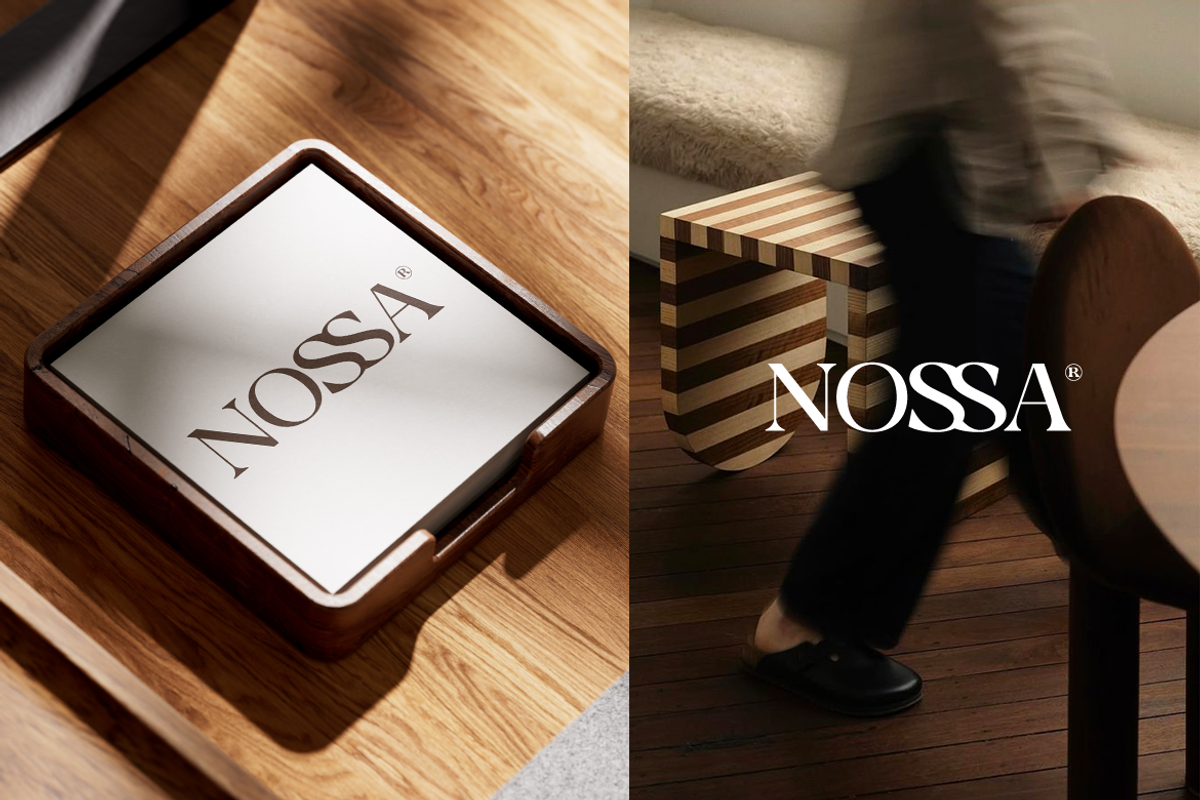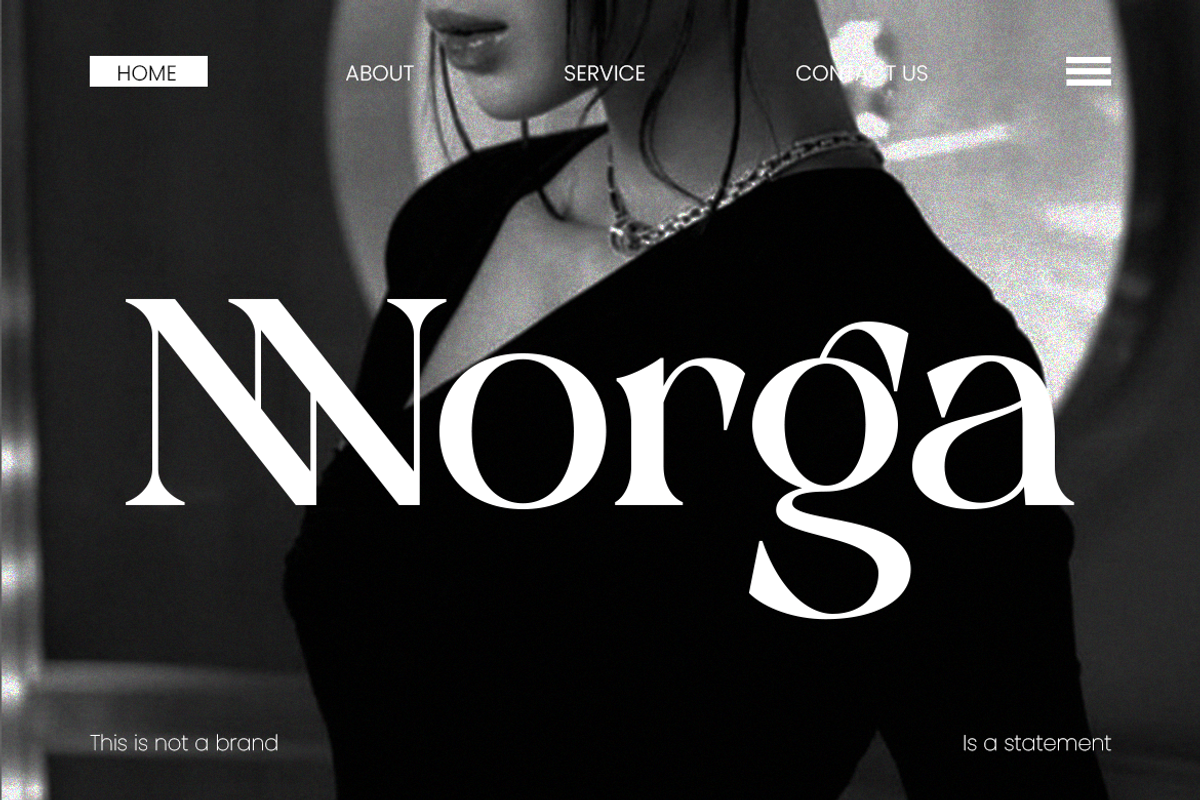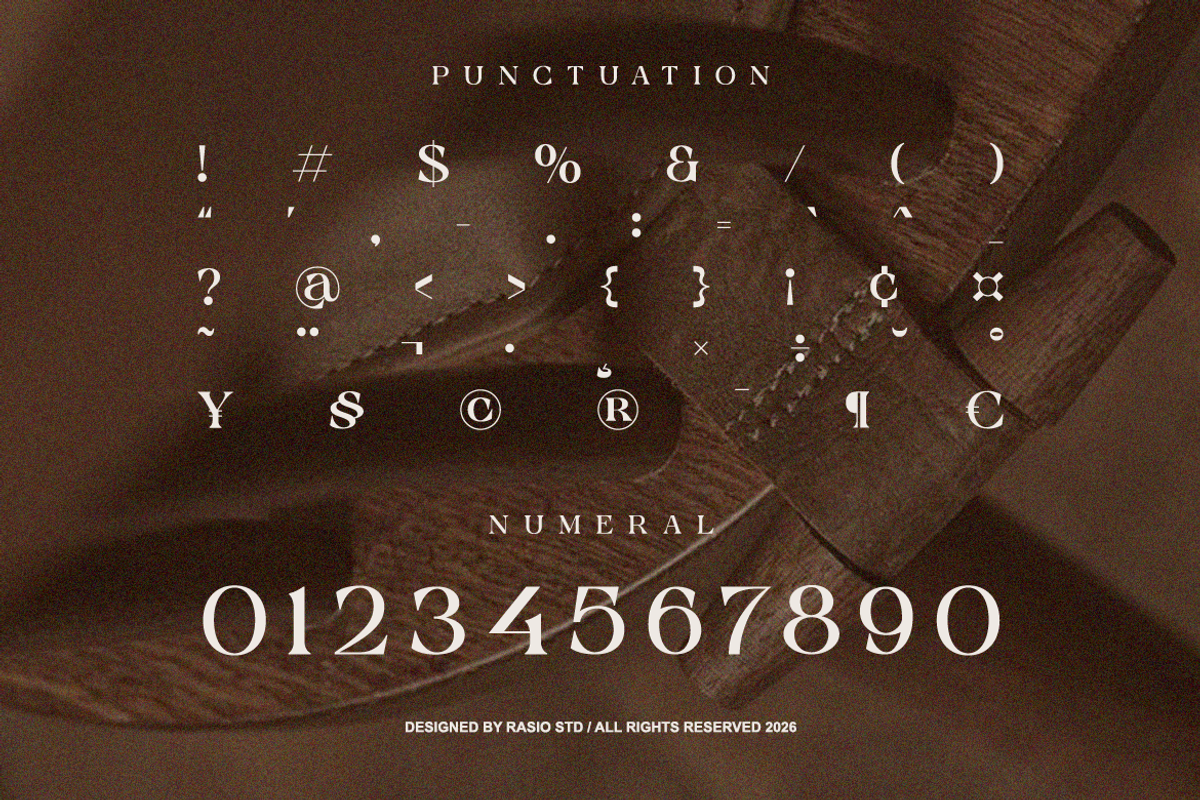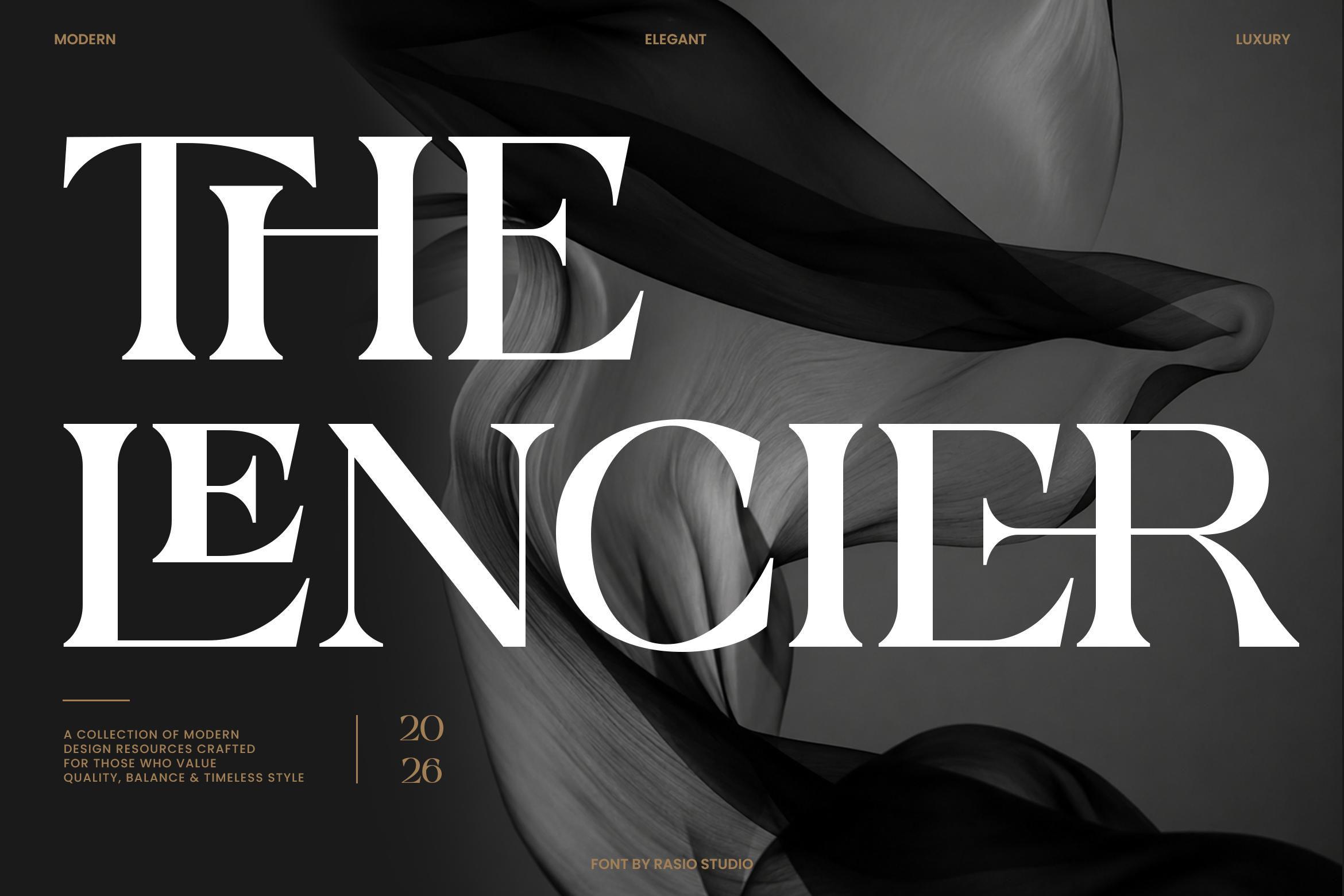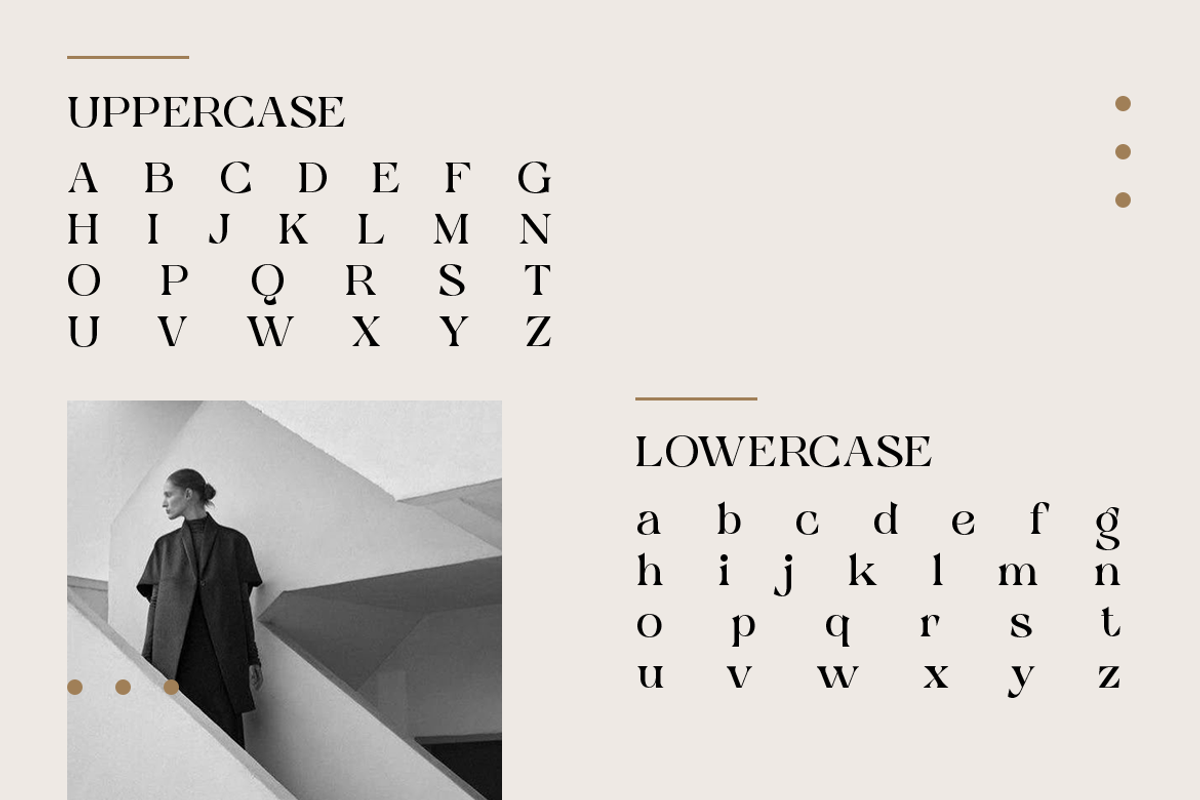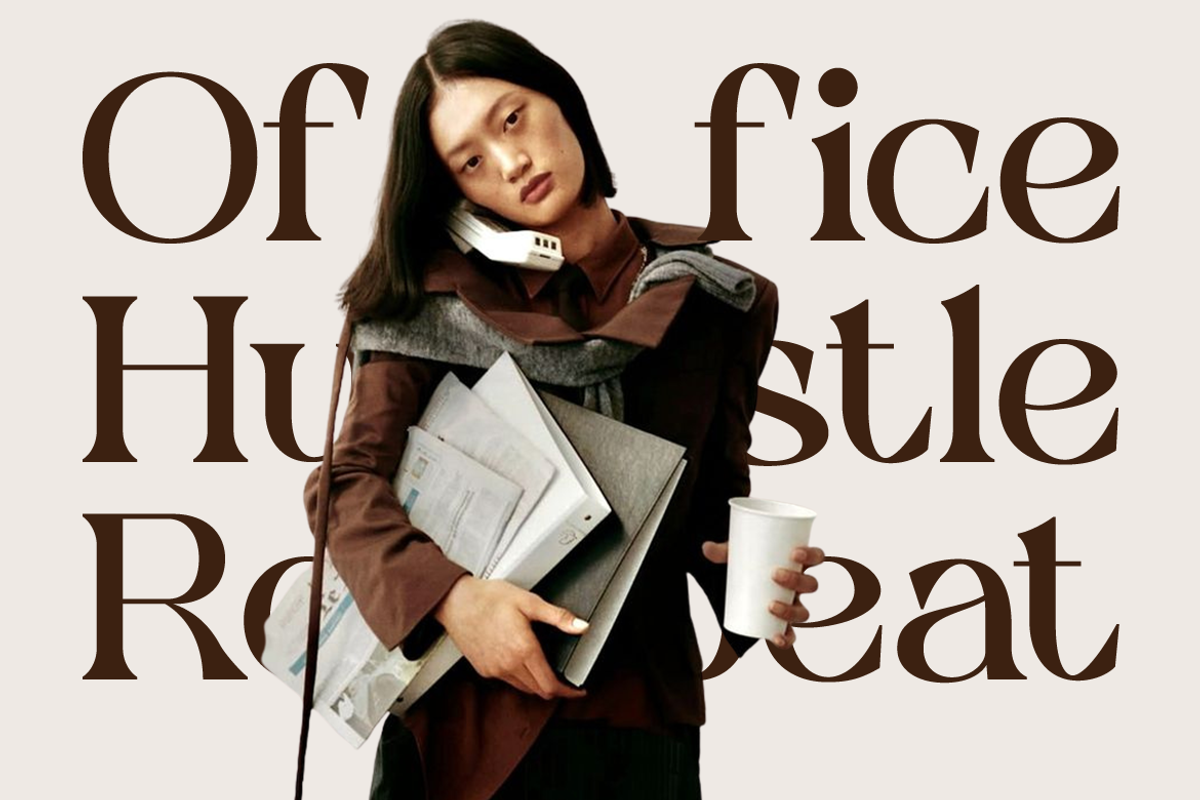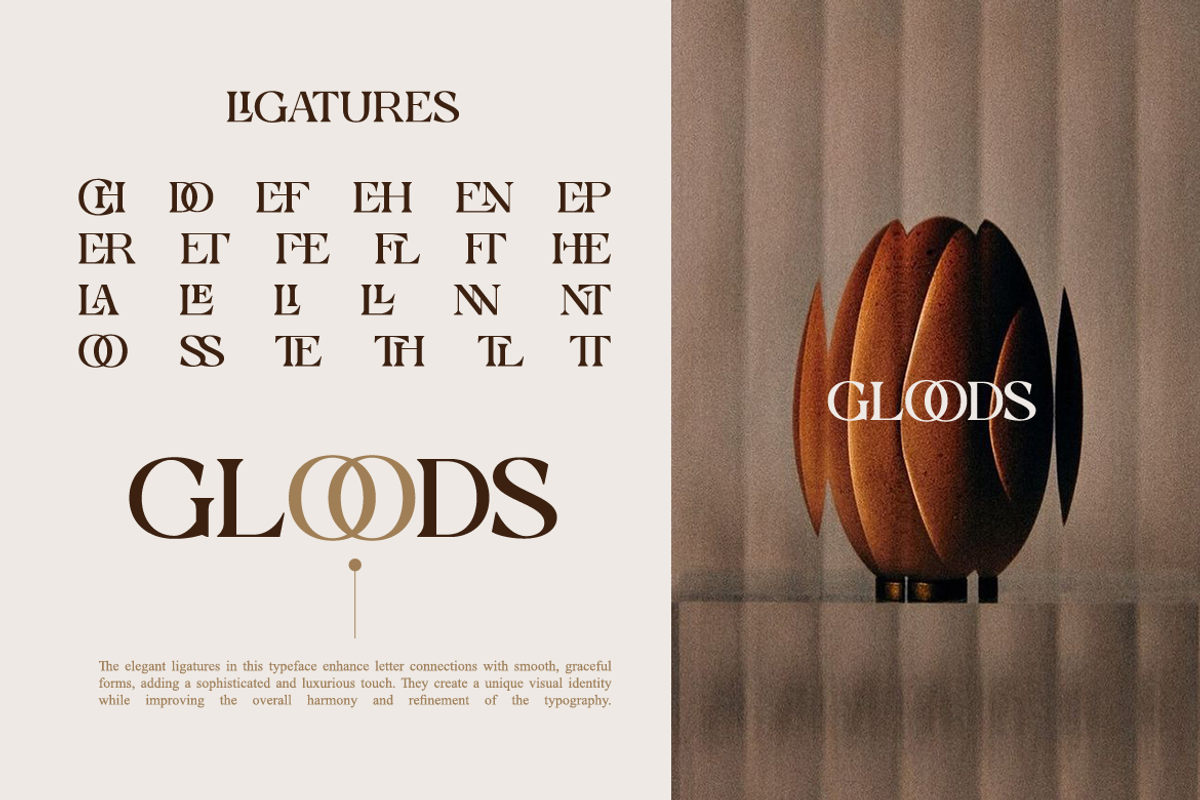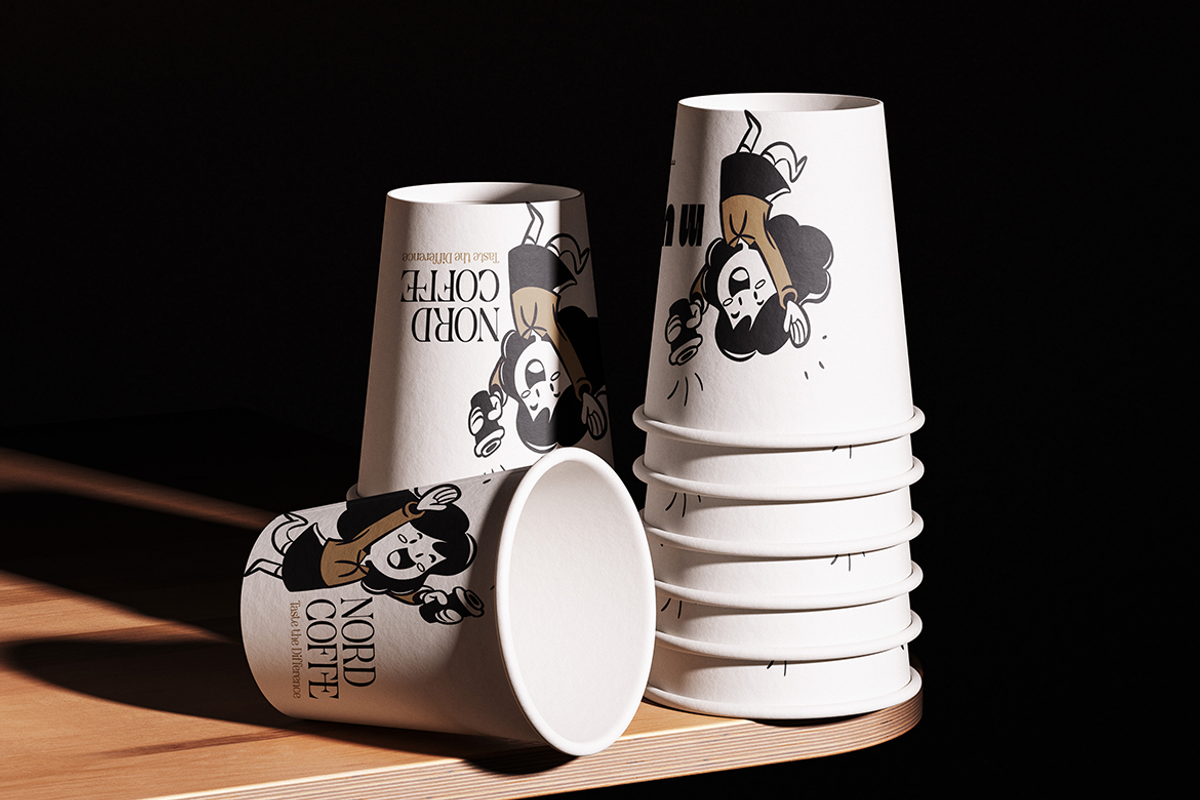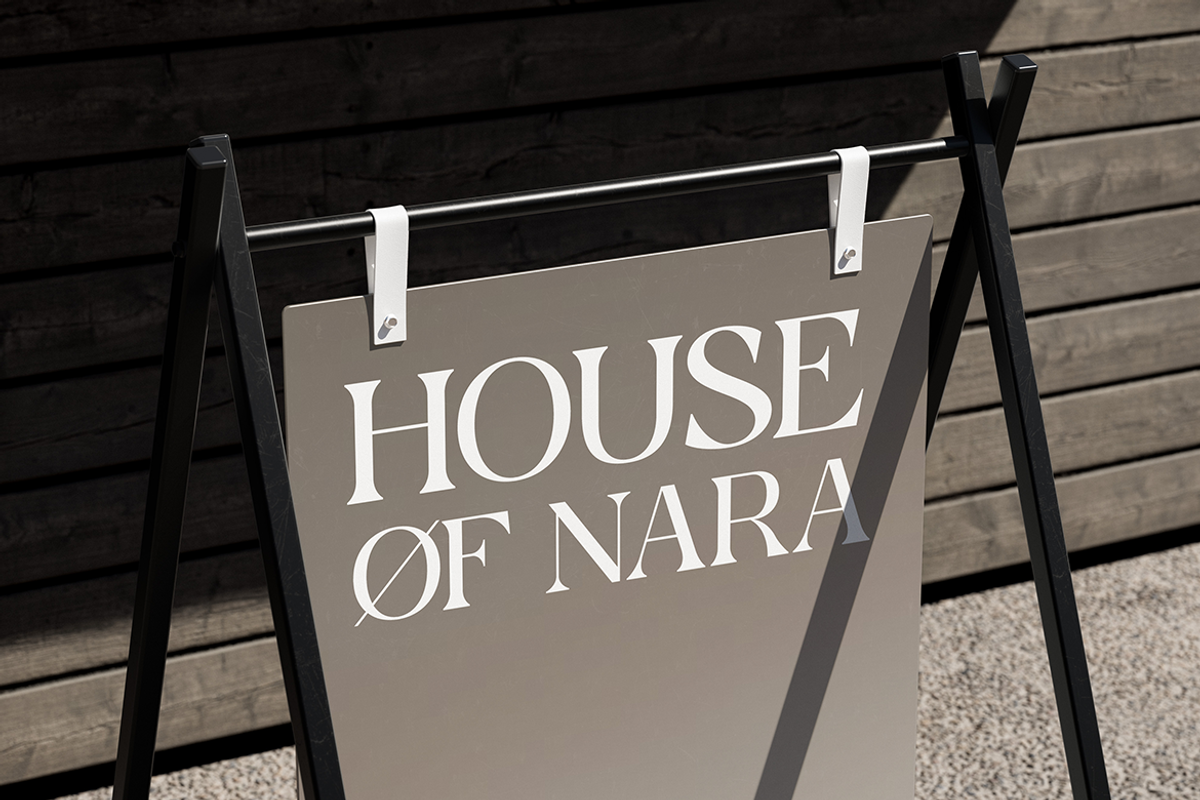
The Lencier Modern Luxury Font
The Lencier_ _delivers a graceful and confident presence through its sharp contrast, delicate curves, and distinctive serif details. The elegant proportions create strong visual impact in large display settings while maintaining sophistication and clarity in refined layouts. Its luxurious aesthetic works beautifully across branding systems, editorial compositions, packaging design, advertising materials, social media visuals, website headers, and premium presentation graphics.
Designed to command attention with elegance rather than excess, The Lencier combines dramatic contrast with refined craftsmanship to create a sophisticated visual identity. The letterforms perform exceptionally well in luxury logos, editorial headlines, magazine covers, cosmetic packaging, jewelry branding, hotel identities, wedding stationery, and premium marketing materials. Its distinctive appearance allows designers to establish a strong brand presence while maintaining a polished and timeless aesthetic across both print and digital media.
High-contrast serif construction with dramatic thick-to-thin transitions
Sharp wedge serifs that create a refined and authoritative appearance
Tall uppercase proportions designed for commanding display typography
Smooth curved letterforms balanced with precise angular details
Elegant vertical stress that enhances visual sophistication and clarity
Luxury brand identities requiring a distinguished and memorable typographic presence
Fashion editorials, magazine covers, and publication headlines with strong visual impact
Beauty, skincare, perfume, and jewelry packaging that emphasizes premium presentation
Boutique logos, wordmarks, and monogram designs with refined character
Wedding stationery, invitation suites, and ceremonial branding with timeless appeal
Supports numerals, punctuation, and extensive symbol set
Shape unforgettable impressions with The Lencier create typography with lasting presence